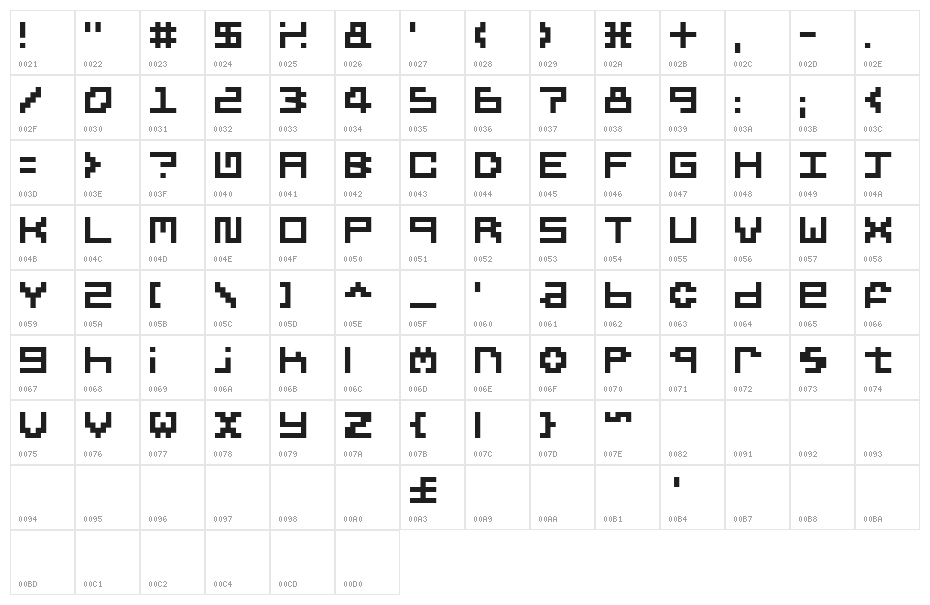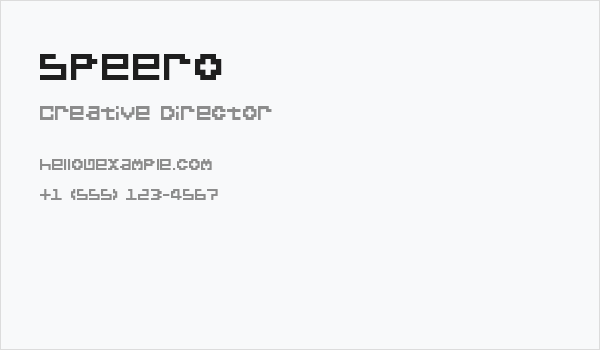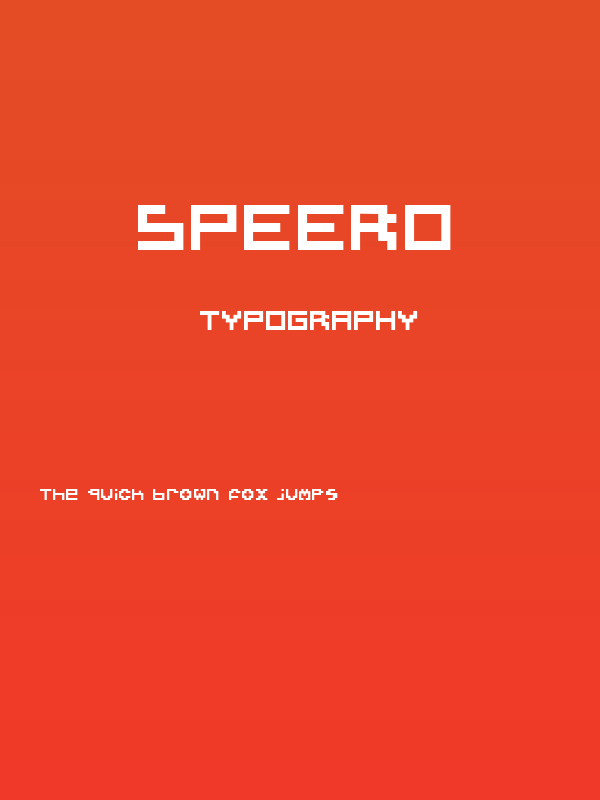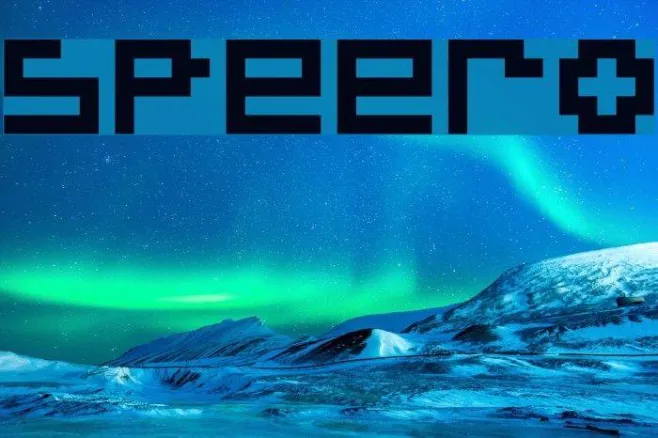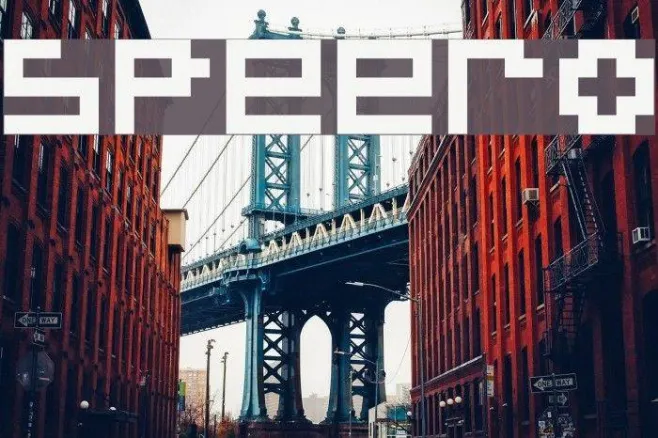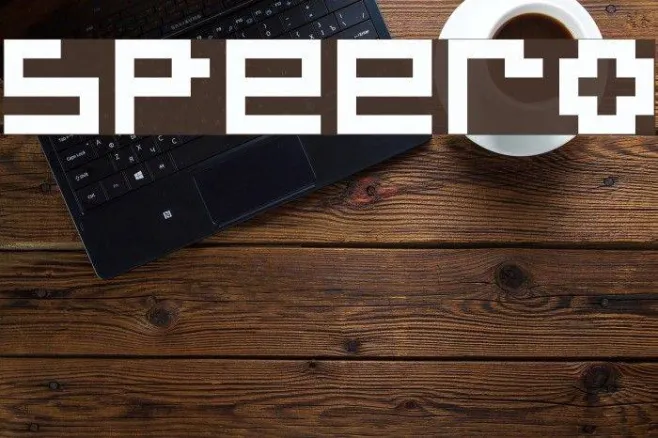
5peero Font
5peero Description
This font features a bold, pixelated design reminiscent of early digital displays and video games. Each character is constructed with a blocky, grid-like structure, giving it a distinctly retro and digital feel. The uniformity in height and width across characters creates a cohesive and structured appearance. The uppercase and lowercase letters maintain a consistent style, with slight variations to distinguish them. Numbers and special characters follow the same pixelated pattern, ensuring a harmonious look throughout. This font is ideal for projects that aim to evoke nostalgia or a tech-inspired aesthetic.
| Overall Style | Retro, Digital |
| Proposed Projects | Perfect for video game design, retro-themed posters, digital art projects, and tech-related branding. |